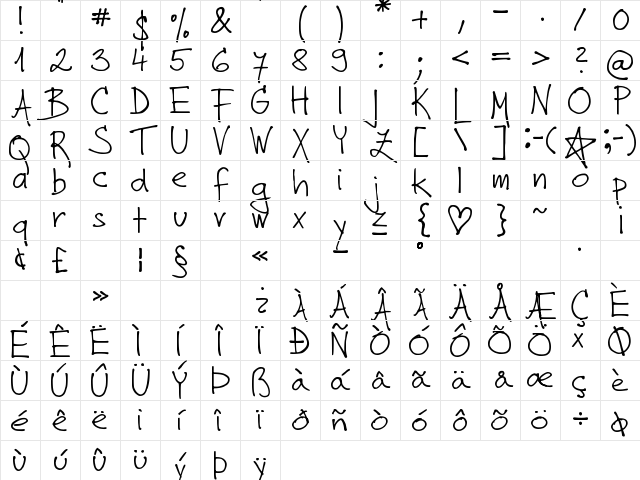
DJB Zora Prints Regular
Designer: Darcy Baldwin
Design Context for DJB Zora Prints
DJB Zora Prints is a composed and adaptable typeface that performs quietly and consistently across a wide range of design contexts.